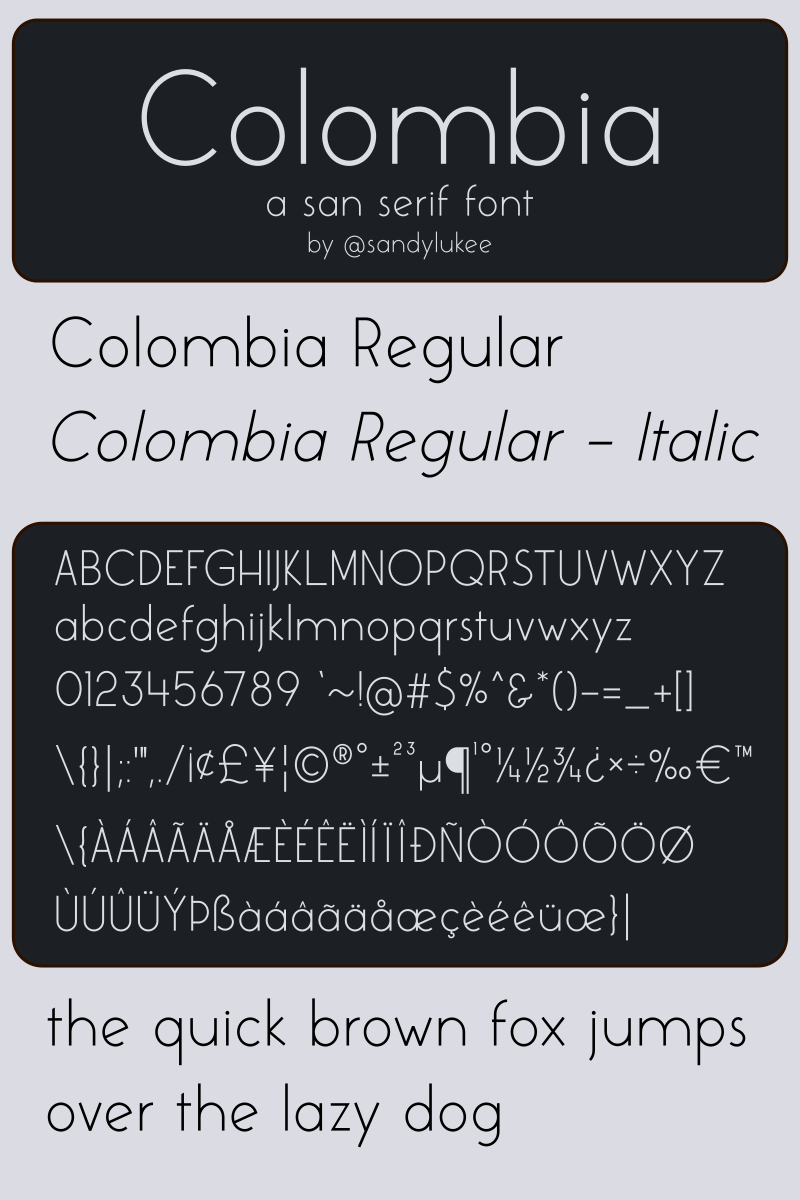
Font name: | Colombia |
Author: | Sandylukee |
Colombia is a simple, elegant san serif font that fit with many kind of your design. It's 100% FREE! It's mean you can use it for personal or commercial use. I am happy if you happy with my font. I hope it will help your work. If you want to say or ask something about this font, you can email me sandylukee@gmail.com If you want to donate just click "donate to author" button below download button or directly to my paypal account https://paypal.me/sandylukee?locale.x=id_ID Thank You Sandylukee |